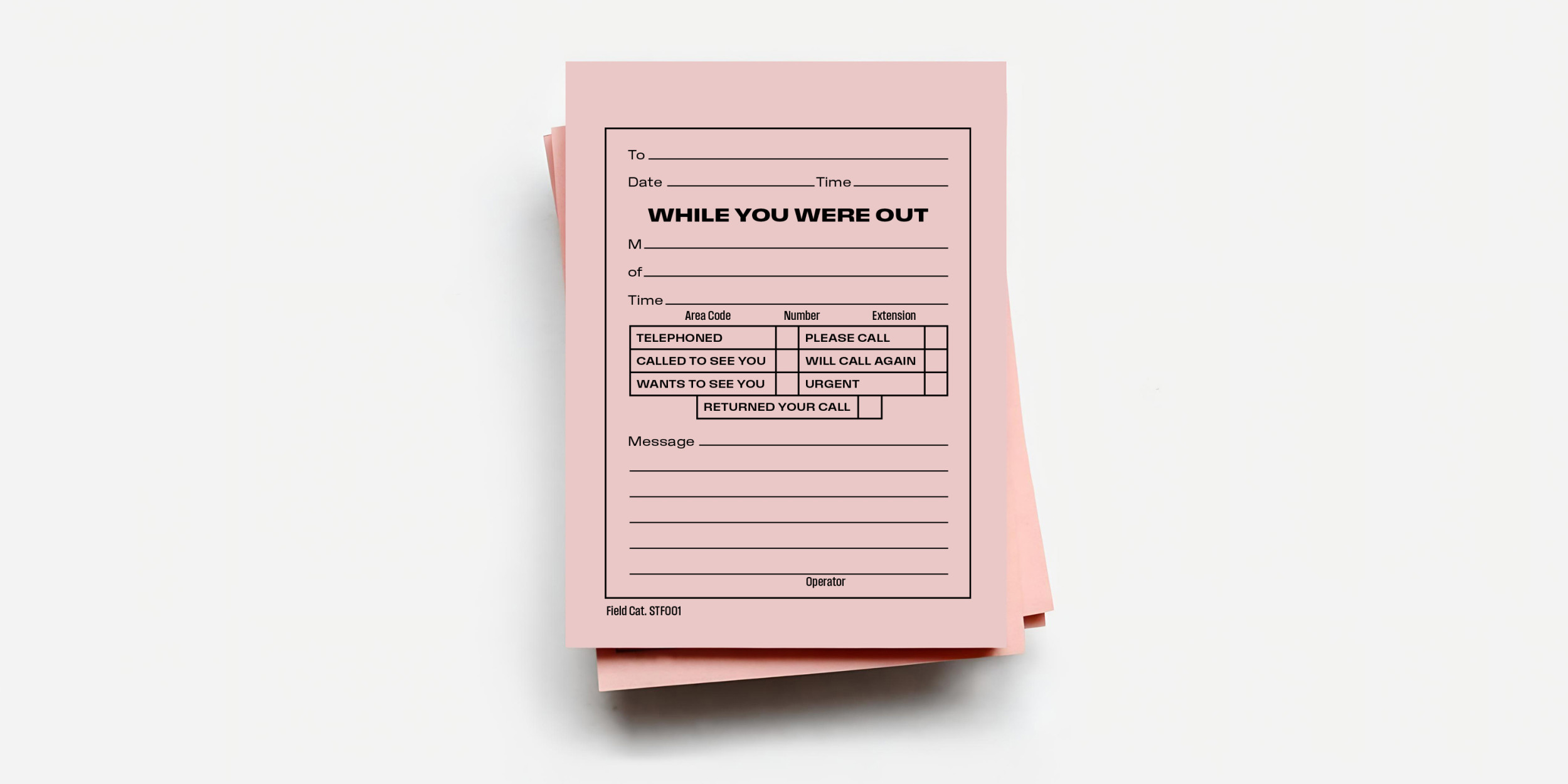
Field Gothic Wide
The Field Gothic journey concludes with the Wide and X-Wide styles. Their broad, expansive forms were drawn from memories of our dad’s Columbia and Blue Note jazz albums, of signage at Eero Saarinen’s old TWA terminal, and of midcentury auto-parts packaging at our local garage. As with the Narrow and Standard ranges, the type is crisp and coolish, with a robust x-height, slightly superelliptical curves, almost monoline light weights and, in the bolder styles, snug fit and sharply contrasting junctures.